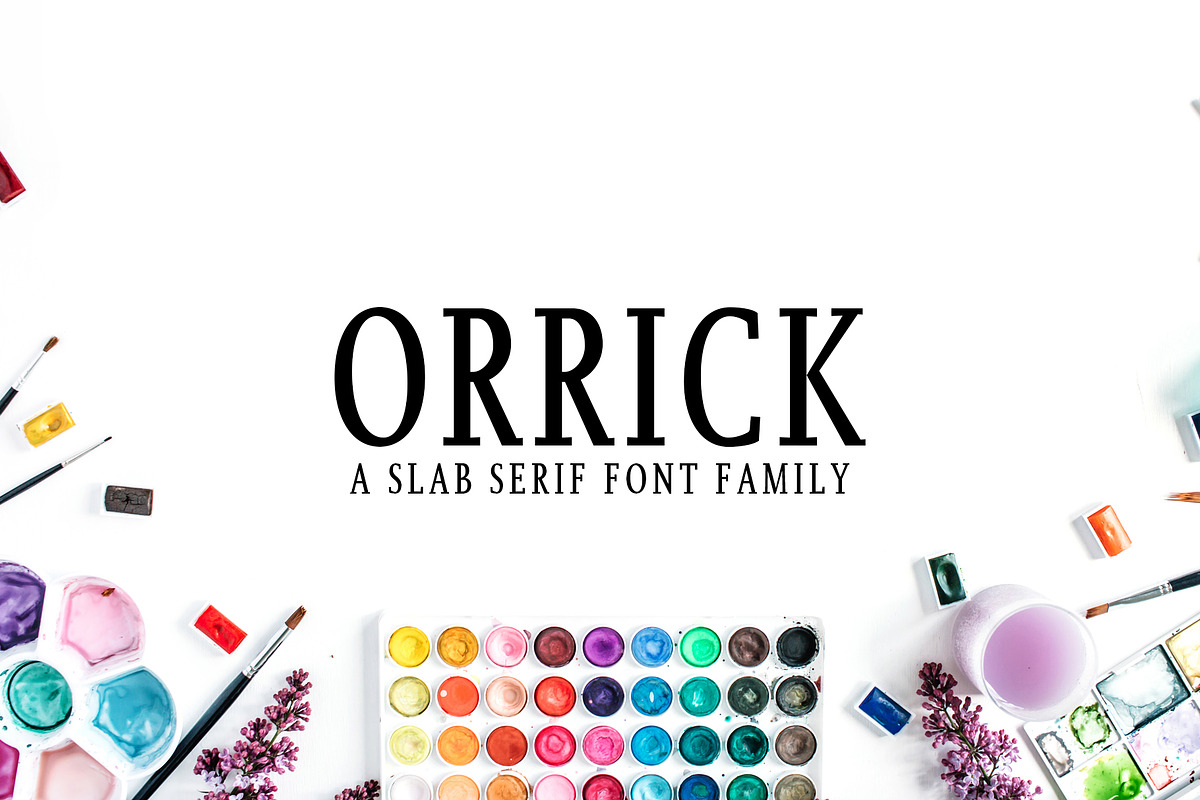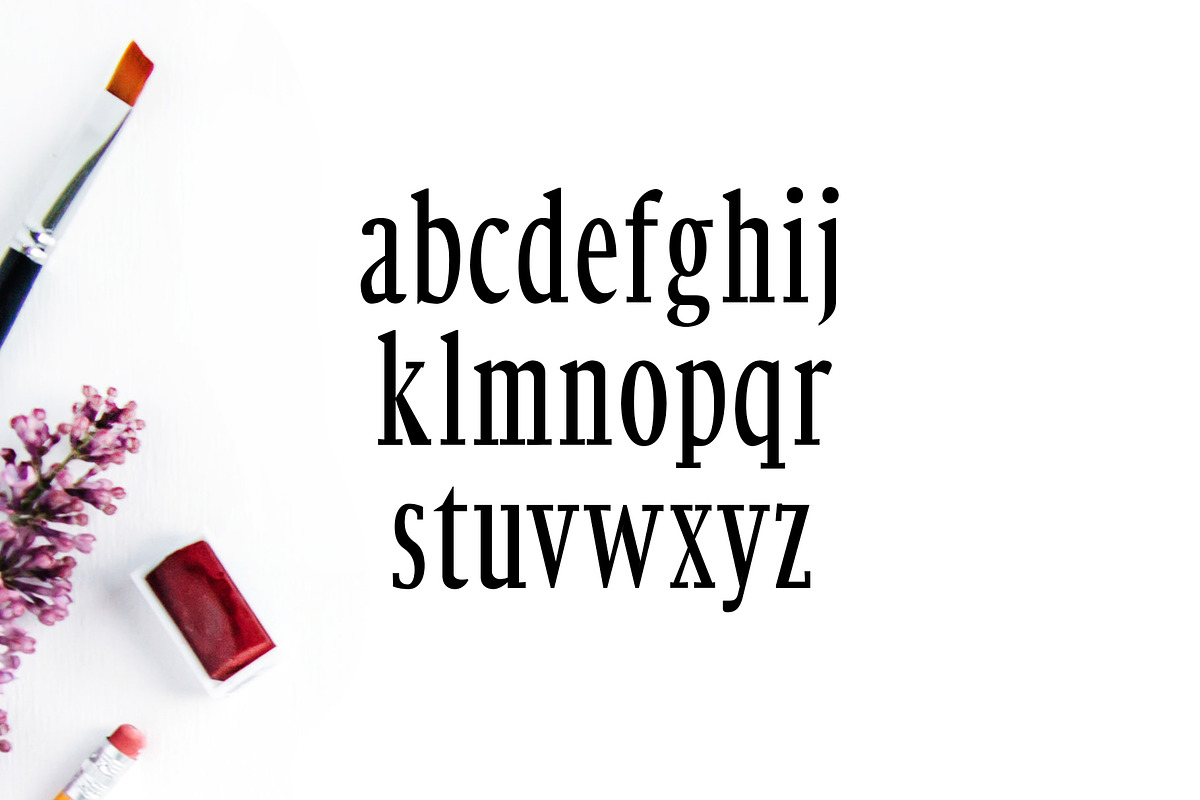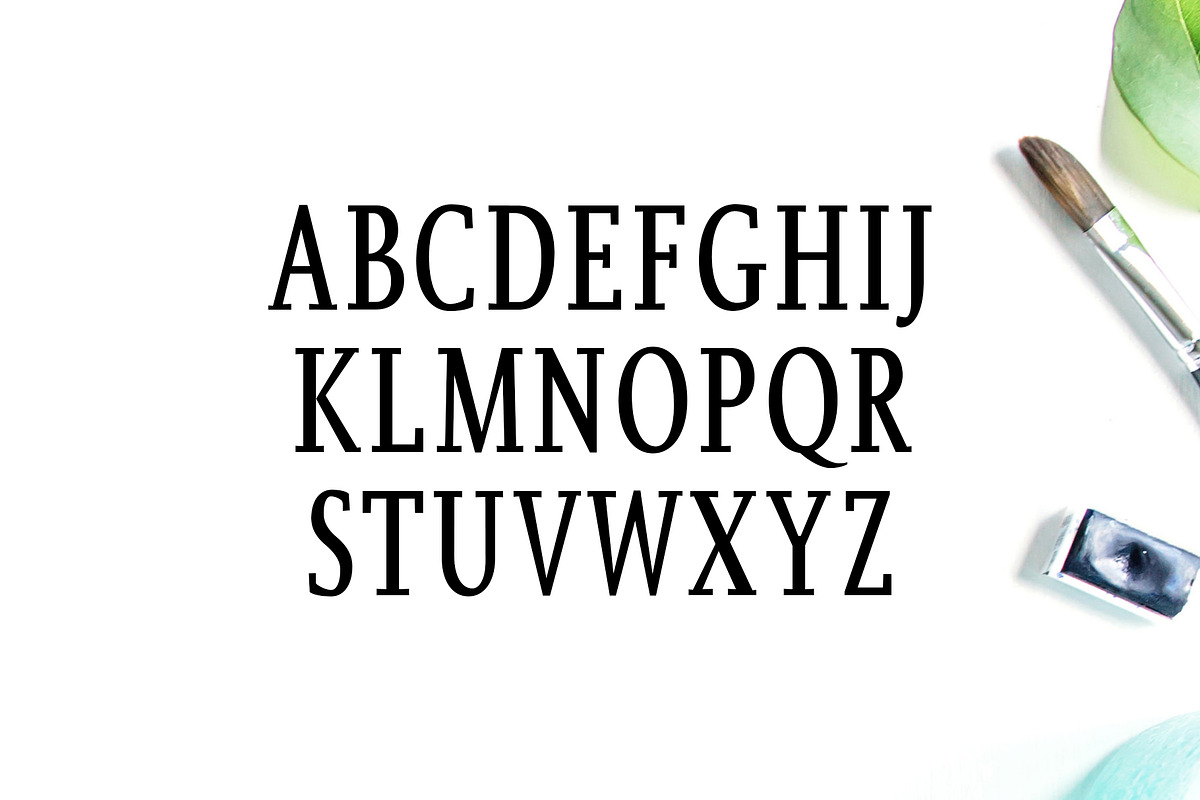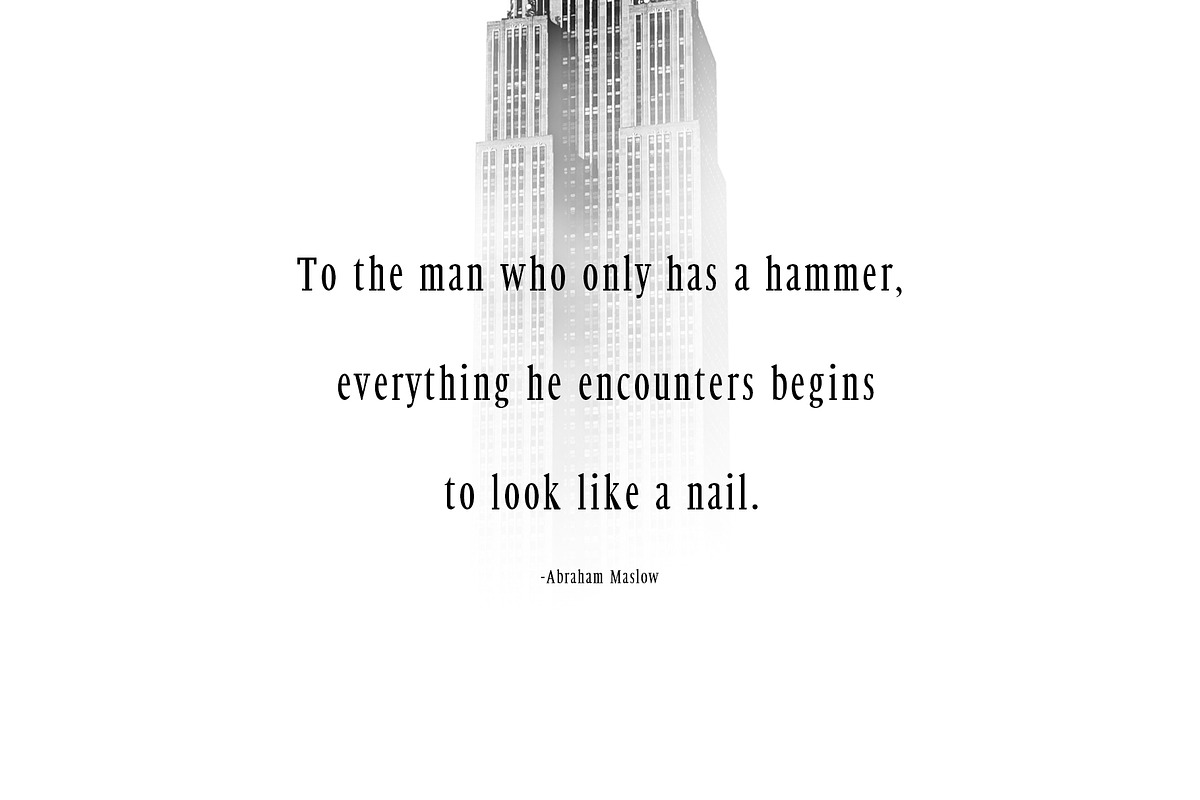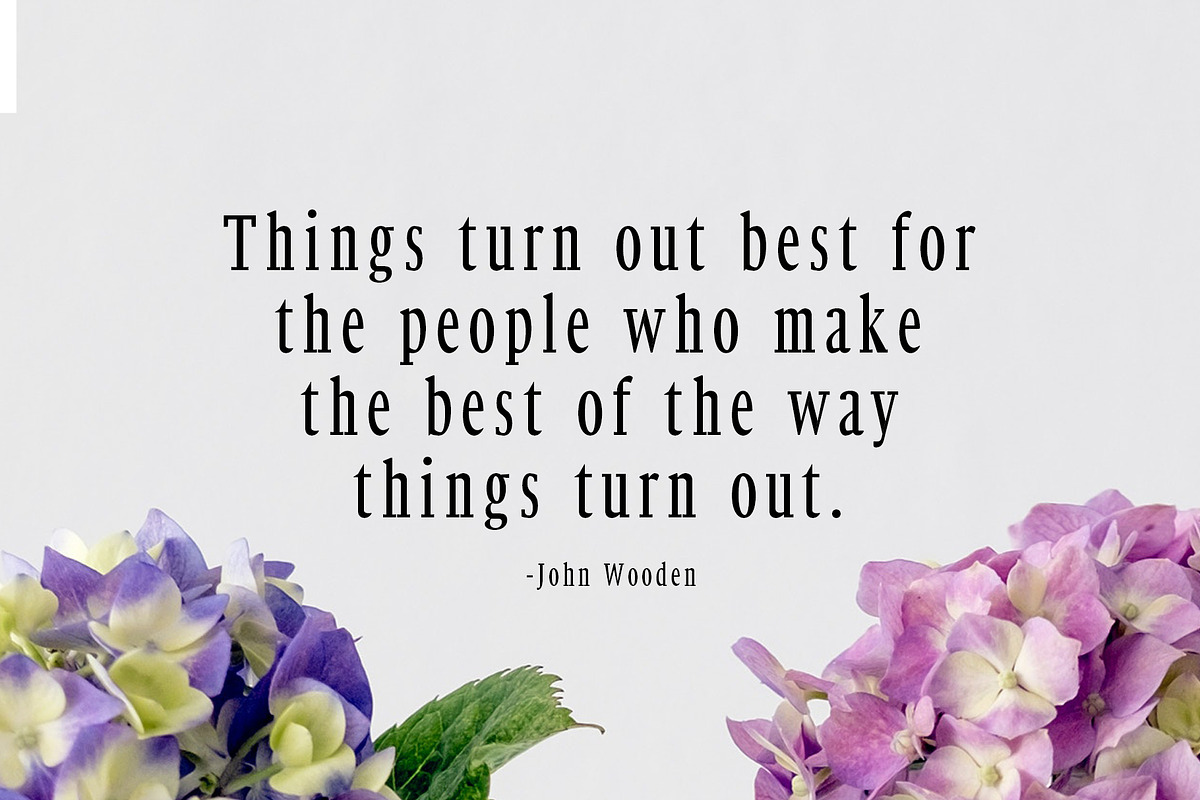
Orrick Slab Serif Font Family
Orrick is a modern bold slab font family of 3 weights. Orrick Garvin includes uppercase, lowercase, numerals, punctuations, symbol and multi-lingual support. Well-suited for editorial projects, logotypes, posters, clean designs, logos, headlines, banners, templates, branding, packaging, logo design, website design, typography, and many more.
It looks gorgeous in all caps with a wide-set spacing if you want to try a classy look, or beautiful on its own in capital and lowercase letters for something completely timeless.
Regular, Medium and Black
Non English Characters ( Latin Supplement + Latin Extended A )